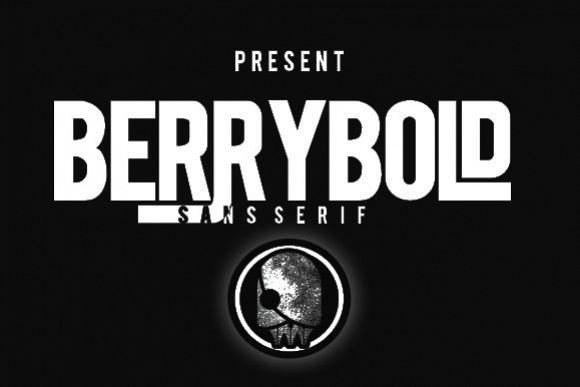
BERRYBOLD
BERRYBOLD in uppercase font with thick and strong. BERRYBOLD, is thick Font remade from CARIBOLD character. BERRYBOLD is CARIBOLD own family, which has been updated
BERRYBOLD , Can used for various purposes. such as the title, logo, correspondence, letterhead, signage, labels, newsletters, posters, badges, t-shirt, etc.
Comes with uppercase characters, large set of punctuation glyphs, numerals, ligature, and supports international languages. Stylistic alternates for several key lower case characters are also available, accessible in the Adobe Illustrator Glyphs panel.
Standard Character. ligature.